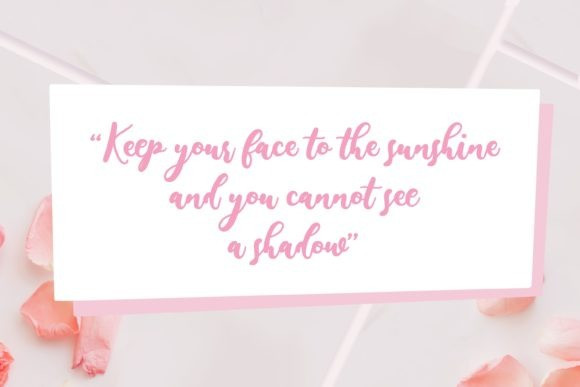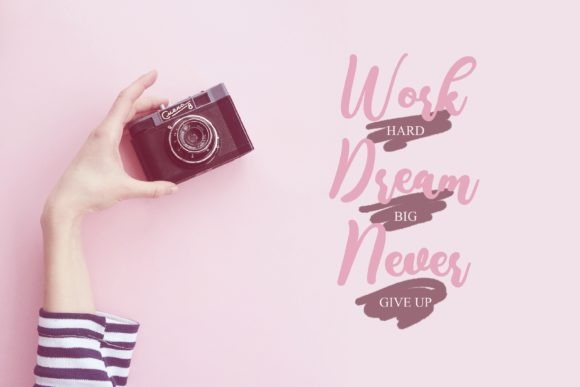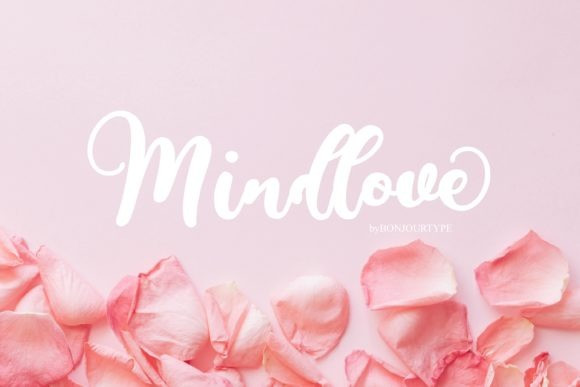
Mindlove Font
Mindlove Font is a wonderfully whimsical and unique typeface with a great variety of elegant swashes! This font is PUA encoded which means you can access all of the available glyphs and swashes with ease!